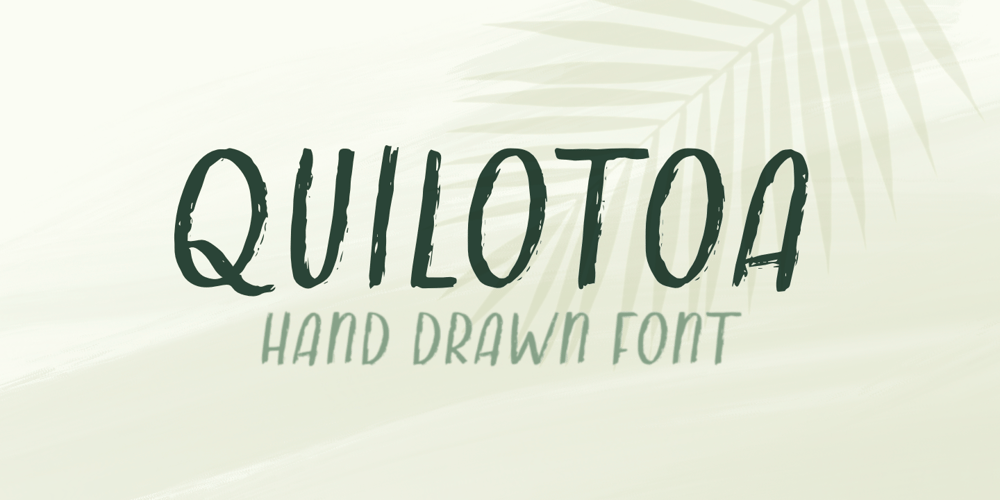
Quilotoa Font Family was designed by Rachel Kick and published by Rachel Kick. Quilotoa contains 1 styles and family package options. This font was originally hand drawn to include authentic brush texture. Works in all caps style and lowercase! The perfect casual font.